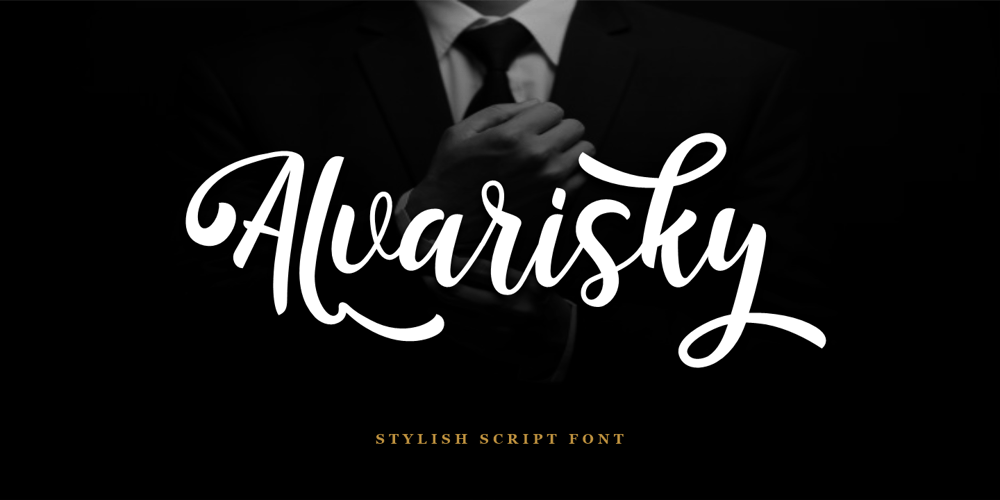
Alvarisky Font Family was designed by Putra Novembria Candra Kusuma and published by Putracetol. Alvarisky contains 1 styles and family package options. Alvarisky is a stylish script font that inspired by combination of streetwear, bouncy and hand lettering styles.Ideal for logos, badge, label, apparel, club, event, handwritten quotes, product packaging, header, poster, merchandise, social media & greeting cards.Alvarisky come with opentype feature like ligature and a lot of alternates character. Its help you to make beautiful lettering.This font is also support multi language.